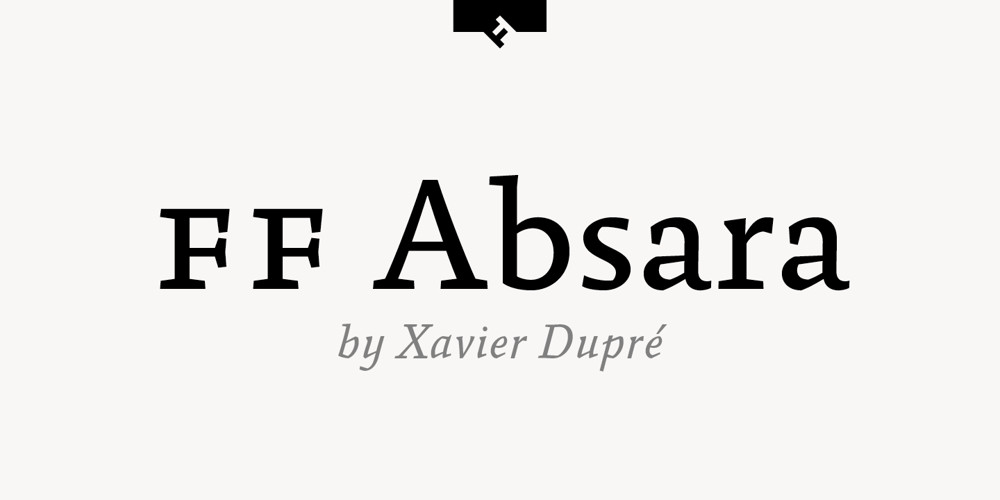
FF Absara Font Family was designed by Xavier Dupré and published by FontFont. FF Absara contains 20 styles and family package options. French type designer Xavier Dupré created this serif and slab FontFont in 2004. The family has 10 weights, ranging from Thin to Bold (including italics) and is ideally suited for advertising and packaging, editorial and publishing as well as logo, branding and creative industries. FF Absara provides advanced typographical support with features such as ligatures, small capitals, alternate characters, case-sensitive forms, fractions, and super- and subscript characters. It comes with a complete range of figure set options – oldstyle and lining figures, each in tabular and proportional widths. In 2005, FF Absara received the TDC2 award. This FontFont is a member of the FF Absara super family, which also includes FF Absara Headline, FF Absara Sans, and FF Absara Sans Headline.